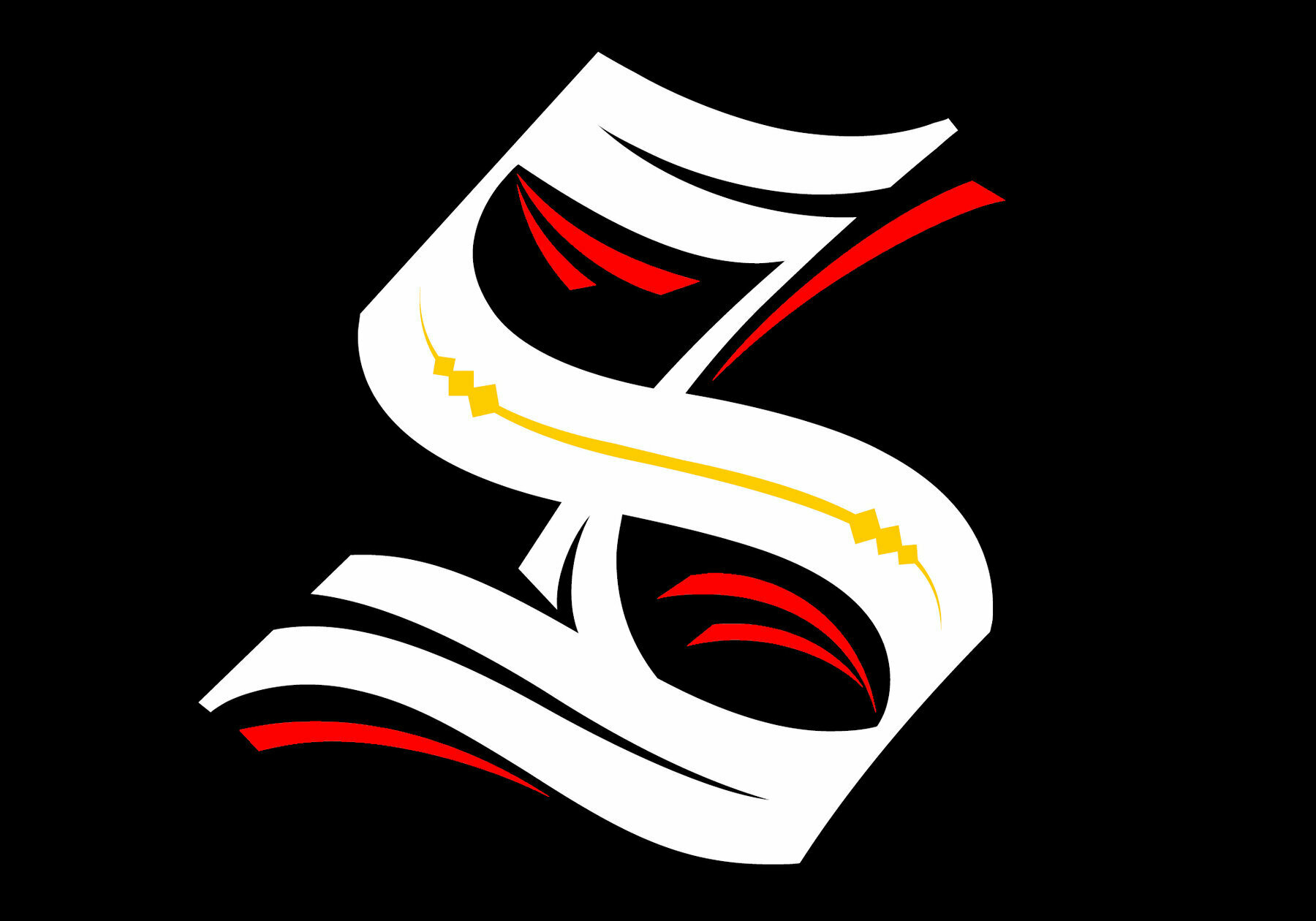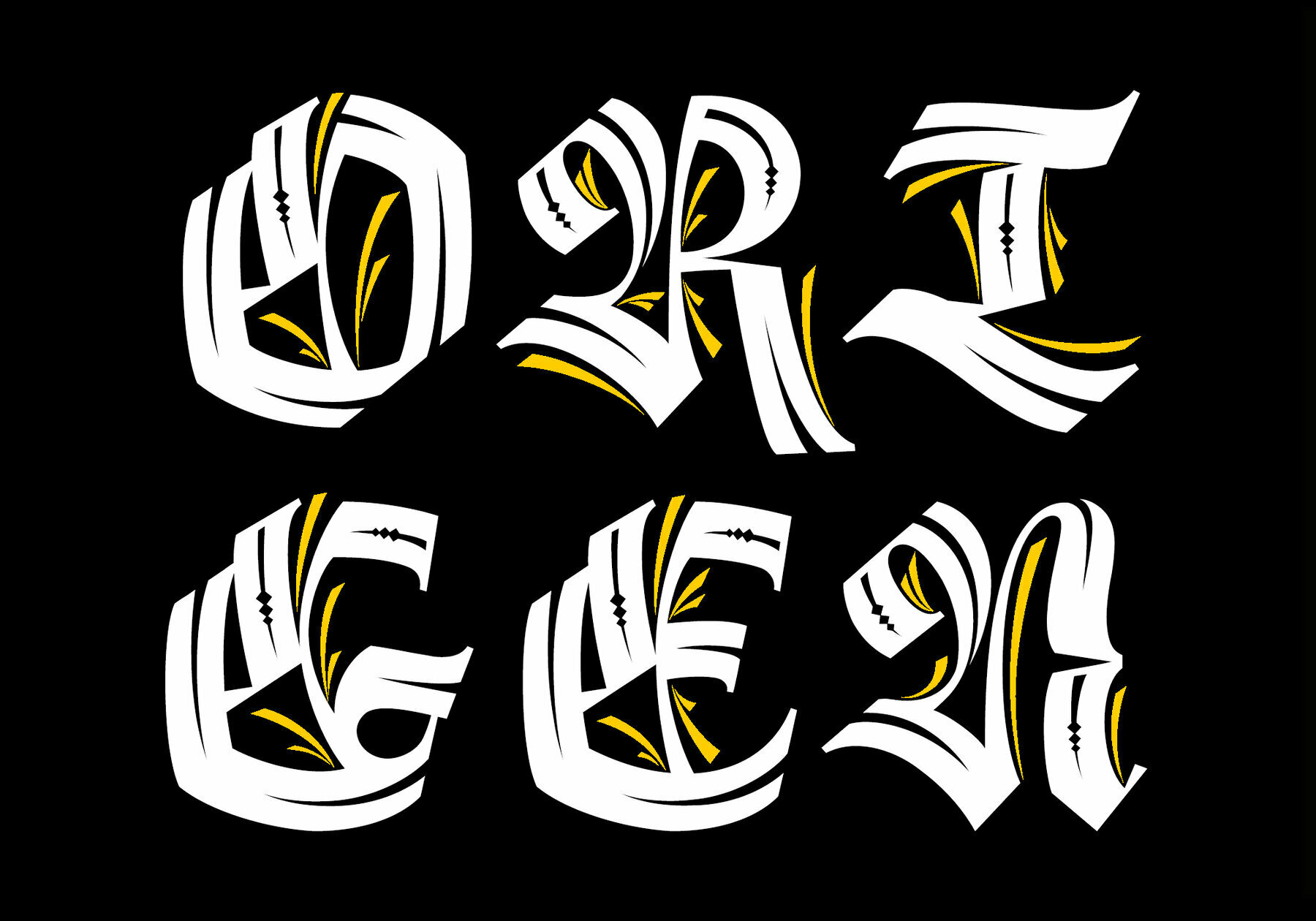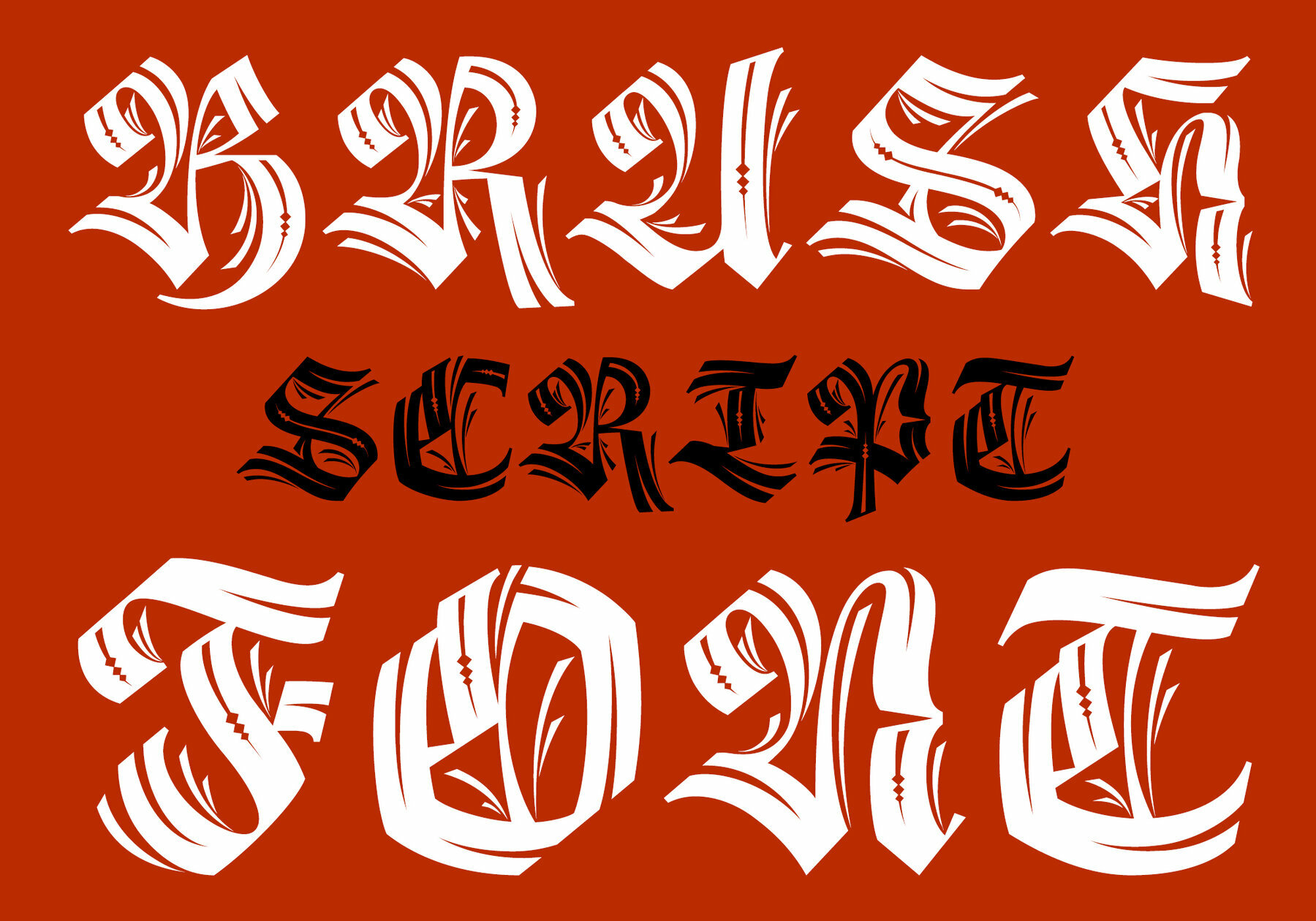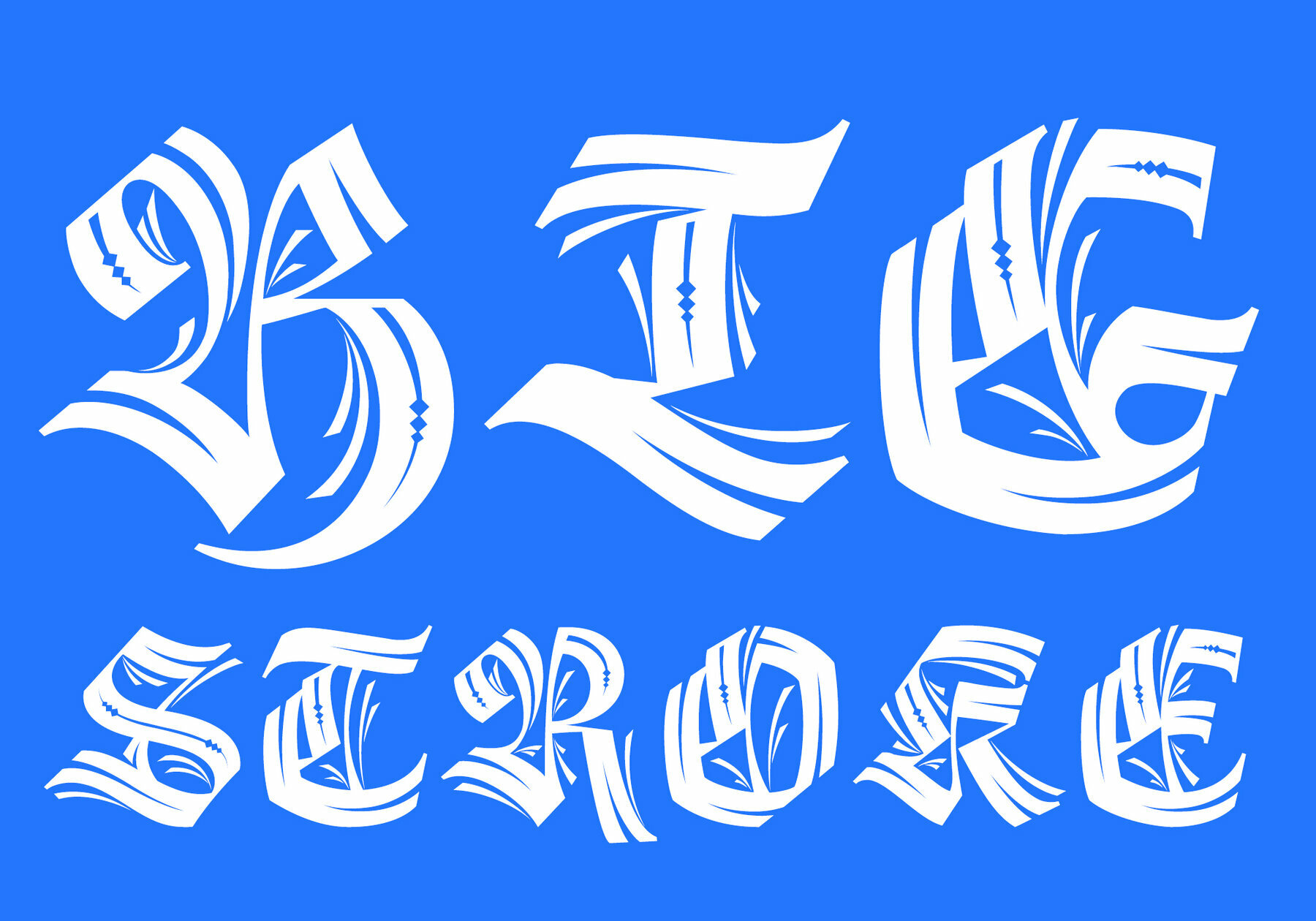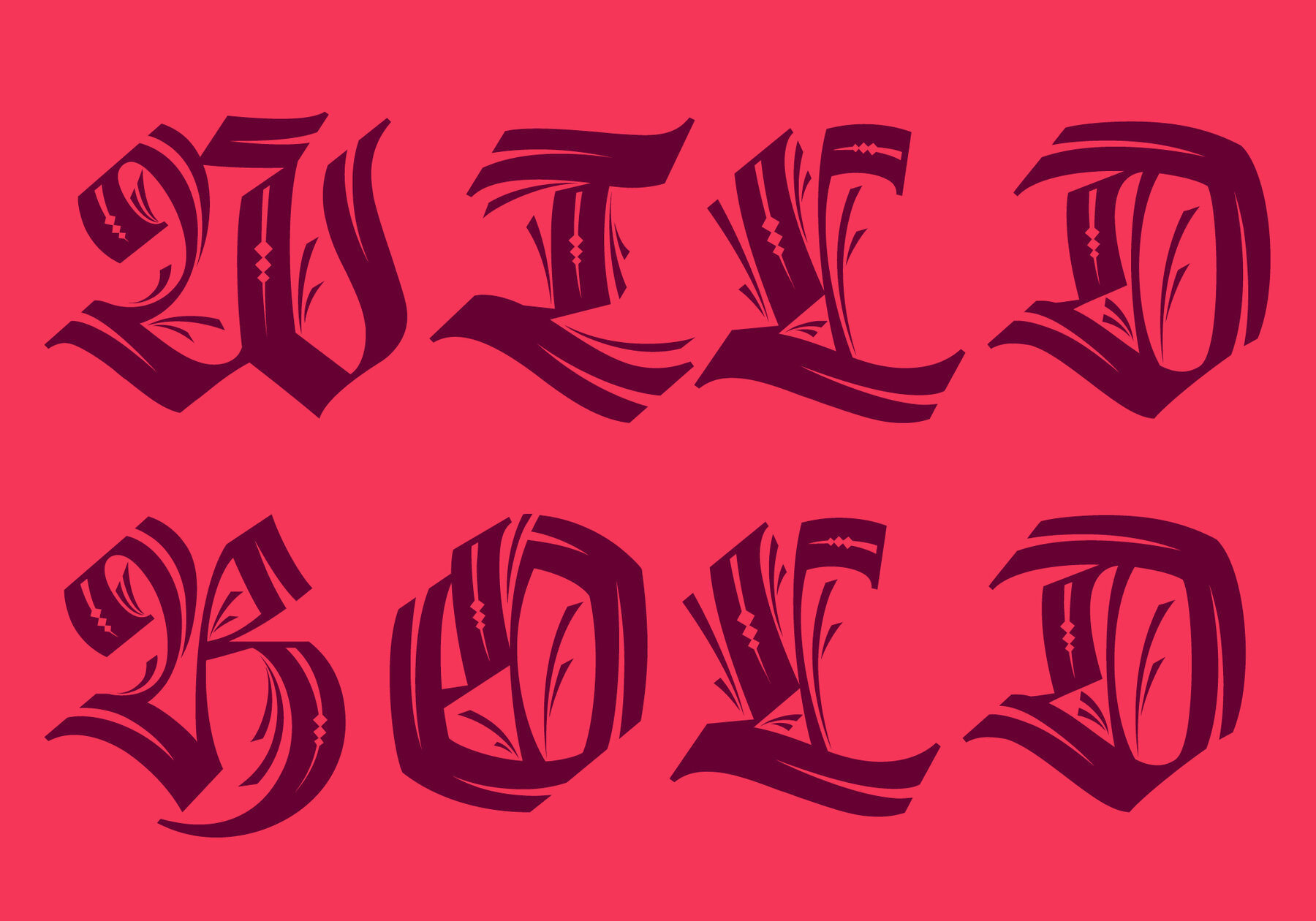
Origen Capitals Font
Origen Capitals
Origen is a typeface inspired by the illuminated manuscripts whereby the text is accompanied by a decorative capital letter at the start of the text. Origen is a hybrid between Textura and Rotunda fonts, characterized by a dynamic calligraphic flow. Origen is also playful as it can be use in editorial, advertising and packaging designs to capture viewers' attention through refined details.